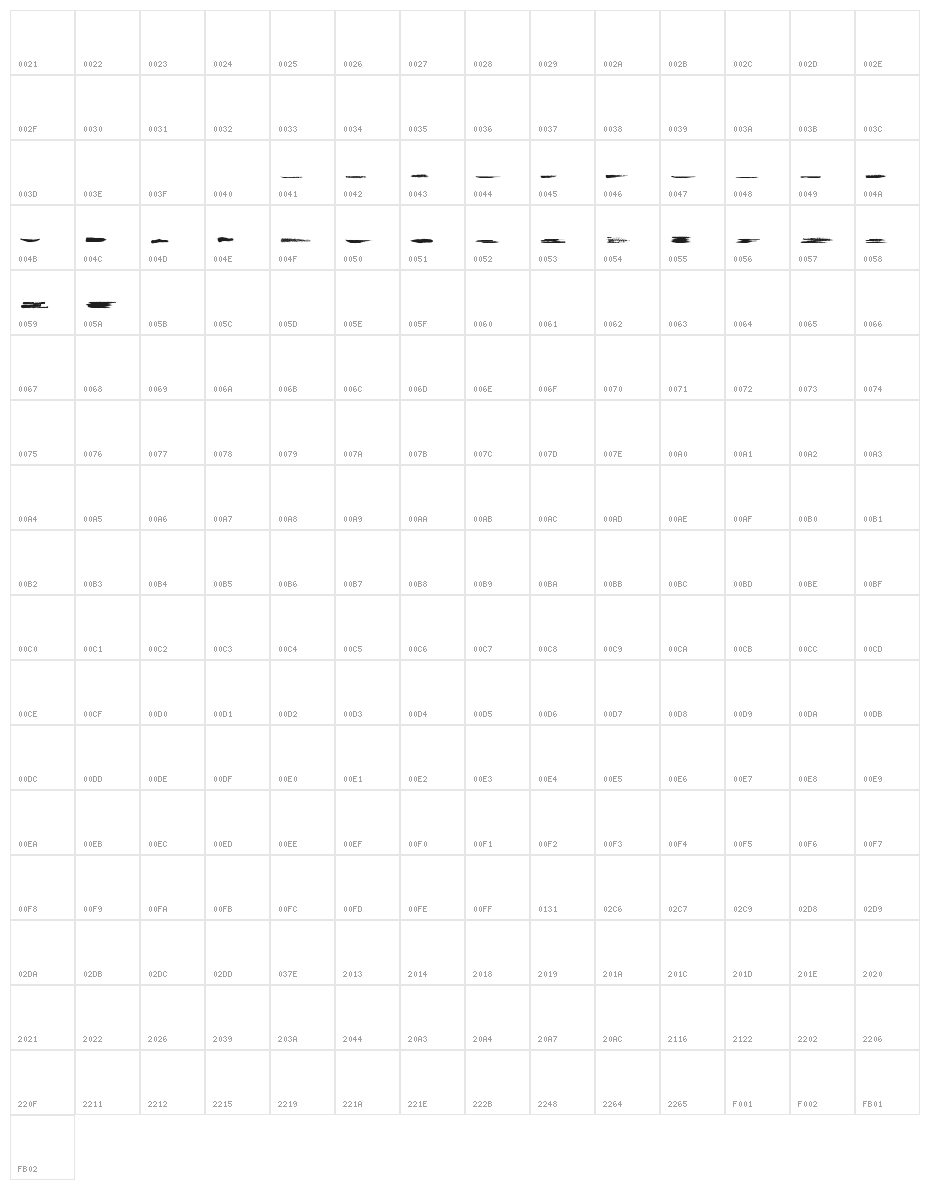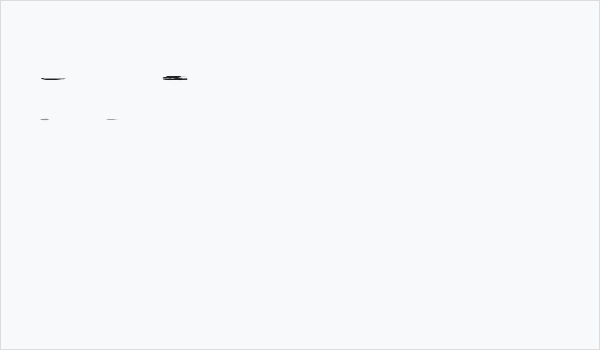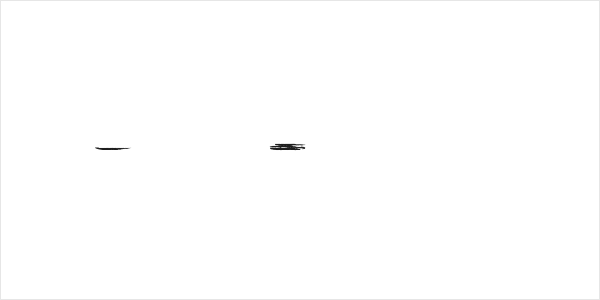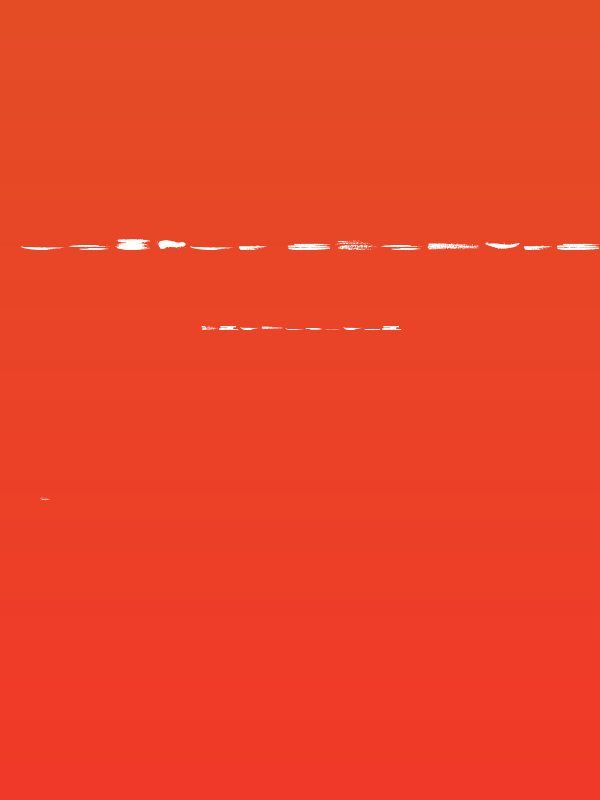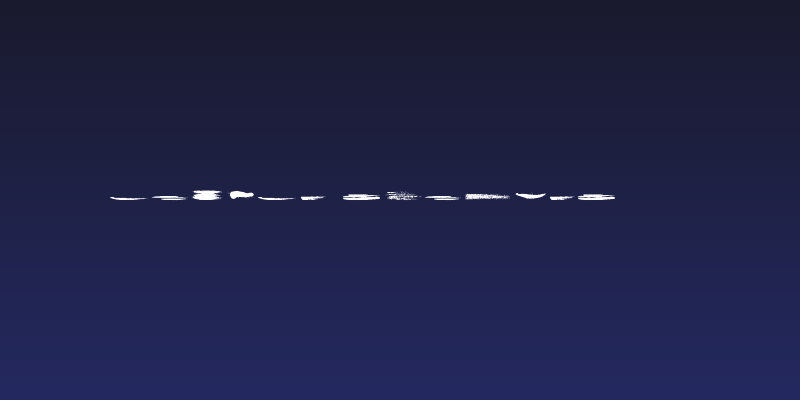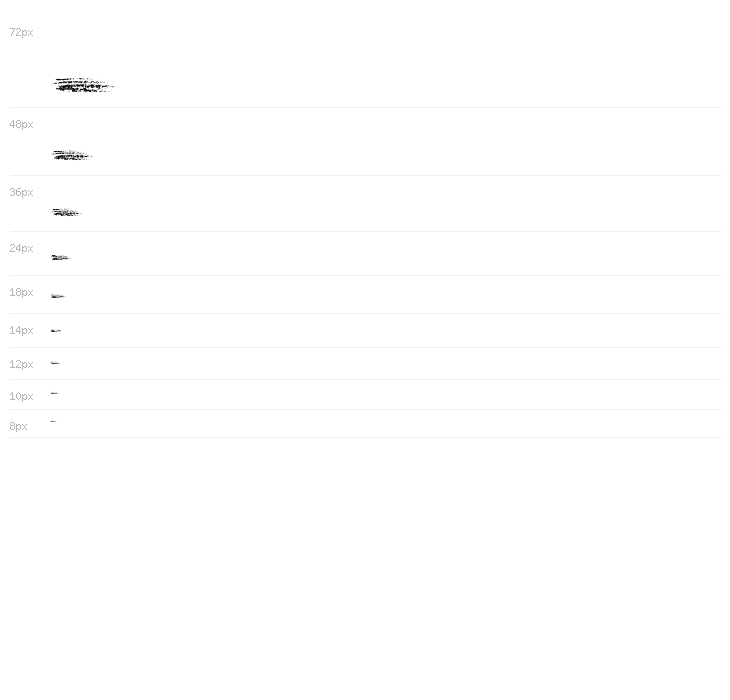
Grunge Strokes 01 Font
Grunge Strokes 01 Description
| Overall Style | Grunge, Distressed, Artistic |
| Use Case | Headlines, Logos, Artistic and urban design elements |
| Proposed Projects | Ideal for artistic posters, album covers, urban-themed designs, and alternative branding projects. |